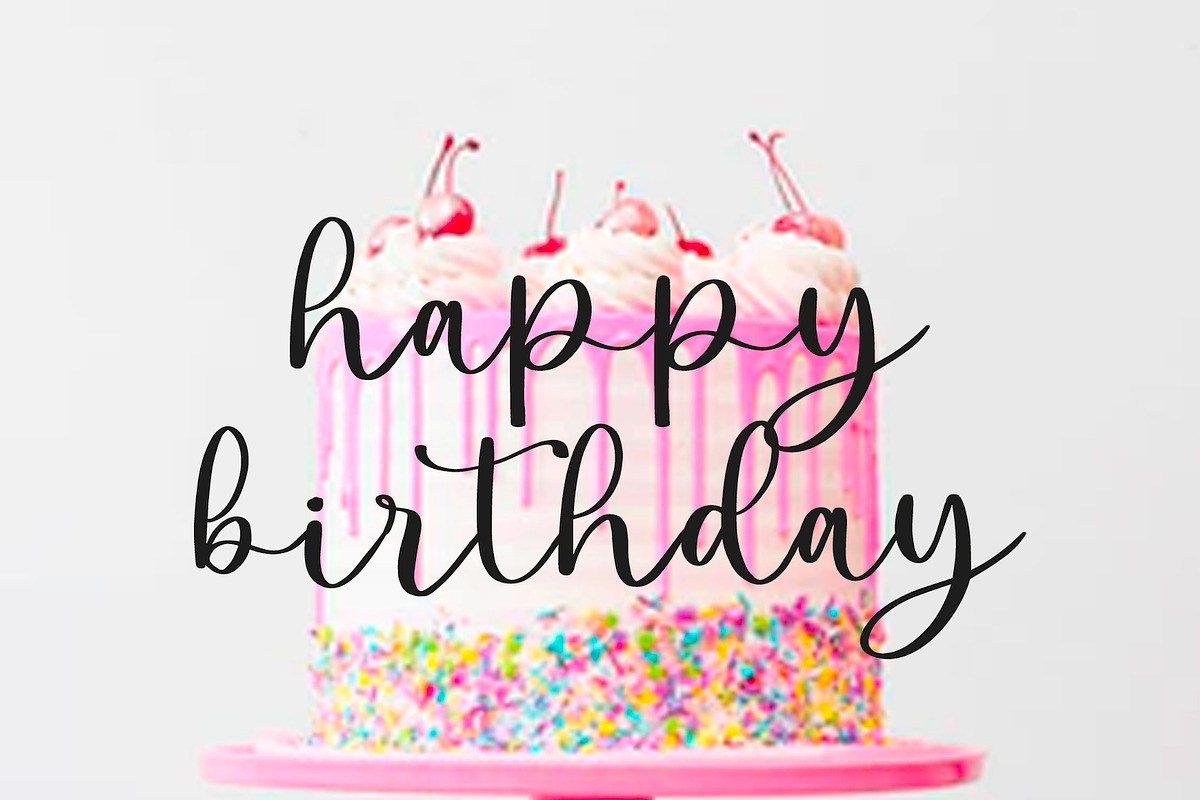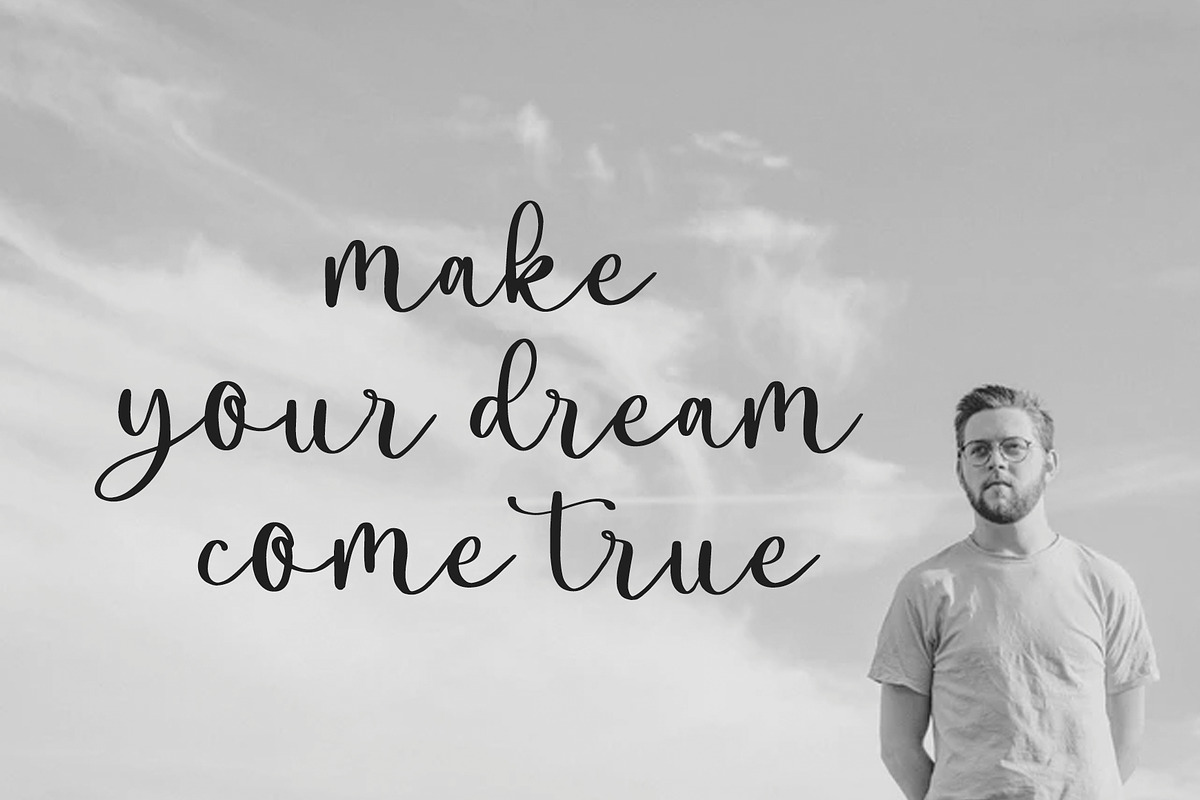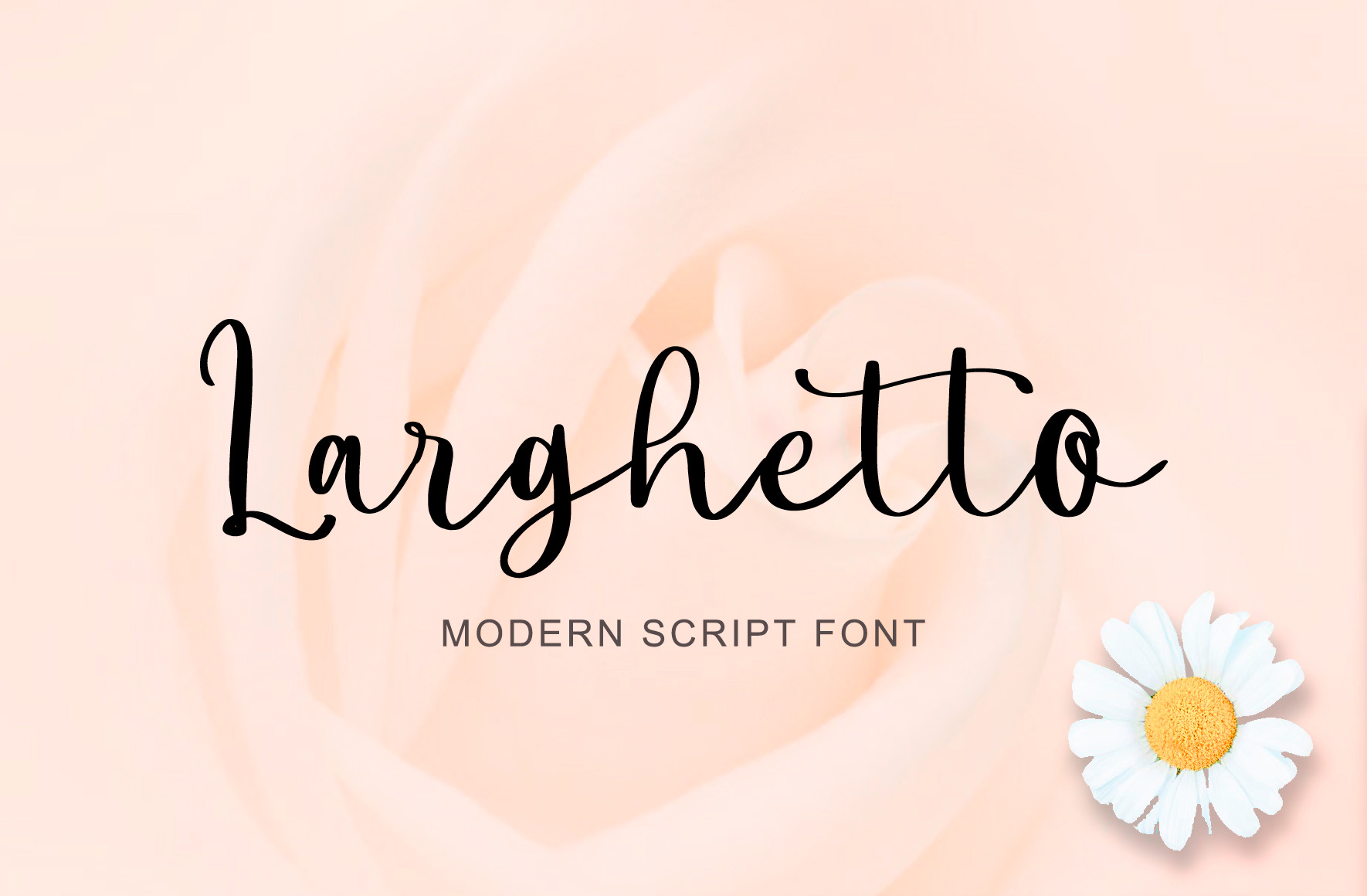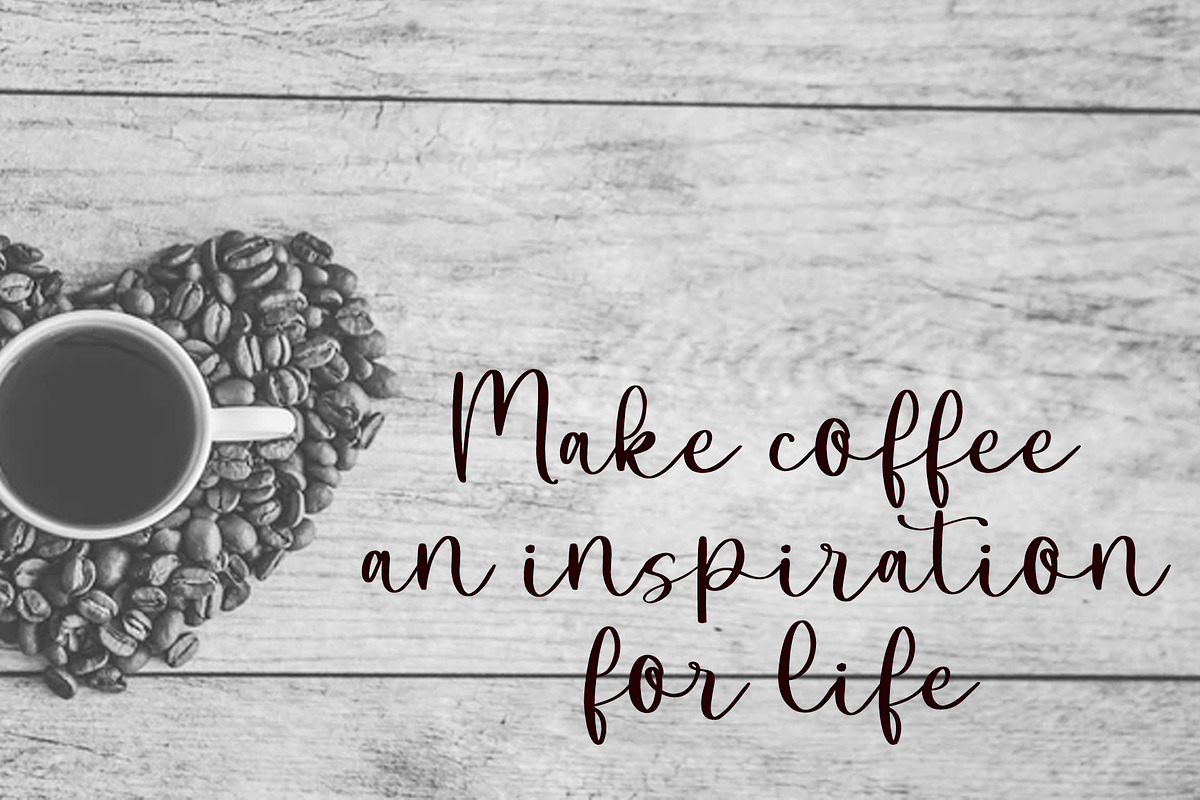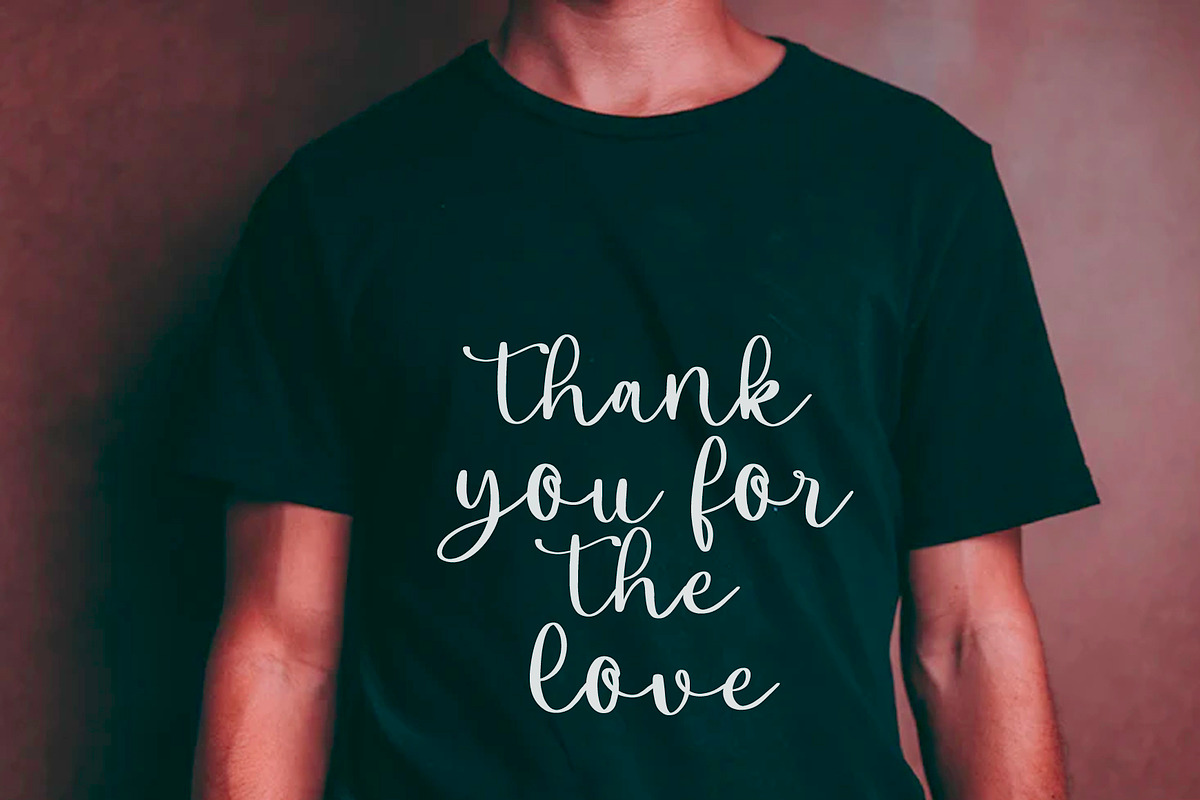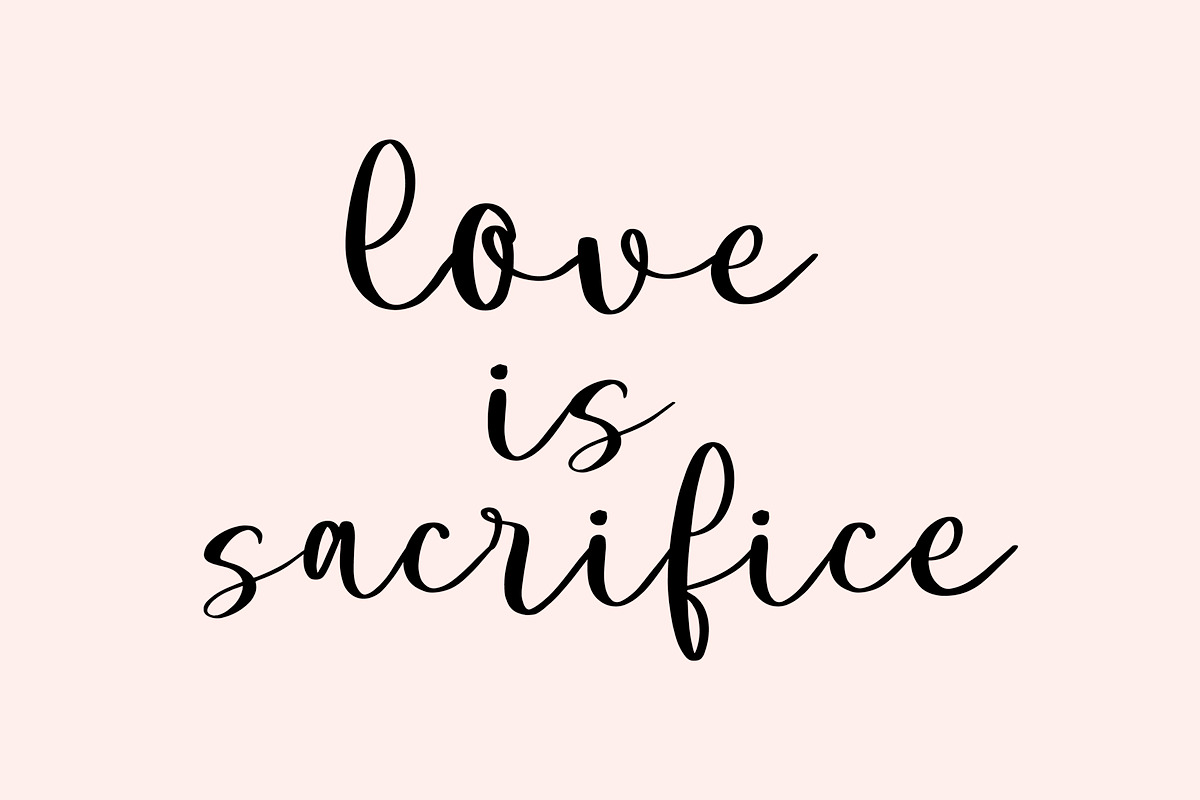
Larghetto | Handwritten Script Font
Larghetto is a chic handwritten script font. Fall for its ravishing style and use it to create gorgeous wedding invitations, beautiful stationary art, eye-catching social media posts, and much more! Larghetto is PUA encoded which means you can access all glyphs and swashes with ease!